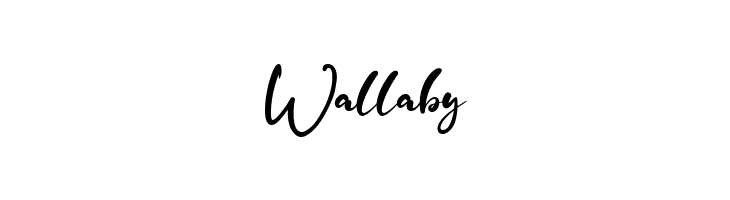
A bold, dynamic script font with elegant curves and high contrast.
A bold, flowing script font with elegant, swirling strokes and high contrast.
A modern, elegant font with clean lines and medium contrast.
A cursive, handwritten font with elegant, flowing strokes.
A jagged, edgy font with a chaotic, hand-crafted appearance.
A bold, high-contrast serif font with elegant, angular serifs.
A decorative and mystical font with bold, flowing characters and unique embellishments.
A mysterious, hollow font with an ancient, coded appearance.
An elegant script font with intricate swirls and high contrast strokes.
A stylish cursive script font with elegant, flowing strokes.
A bold, flowing script font with a dynamic and handwritten style.
A dynamic and flowing script font with elegant, cursive letterforms.
A bold, brush-style font with textured, hand-painted strokes.
A playful, bubbly font with a cartoonish, bold style.
A bold, playful font with rounded, thick strokes and a hand-drawn feel.
A bold, brush-style font with a lively and informal appearance.
A playful, hand-drawn font with continuous lines and rounded edges.
Elegant cursive script with flowing, interconnected letters.
An elegant, cursive font with flowing, interconnected letters and a calligraphic style.
A bold, brush-style font with a hand-painted, artistic look.
A bold, flowing script font with a dynamic and elegant style.
A dynamic and flowing script font with playful elegance.
A graceful and elegant script font with flowing, handwritten strokes.
An ornate and decorative script font with intricate swirls and flourishes.
A flowing, cursive script font with elegant, interconnected strokes.
A bold, geometric typeface with strong, uniform strokes and a modern flair.
A rugged, hand-drawn font with a pirate-themed, adventurous style.
An elegant, flowing script font with graceful, cursive strokes.
A flowing, cursive font with interconnected characters and a sophisticated style.
A modern, cursive font with a fluid, handwritten style.
A bold, graffiti-inspired font with dynamic, hand-drawn characters.
A bold, handwritten font with a playful and friendly style.